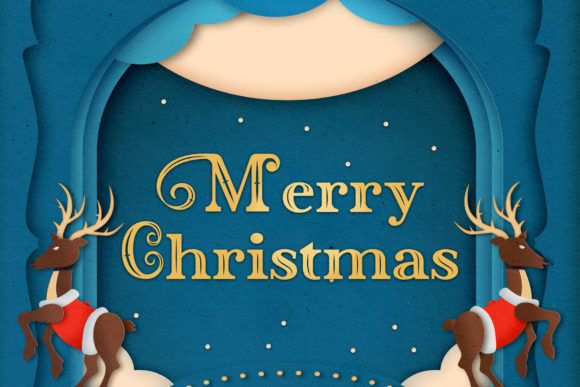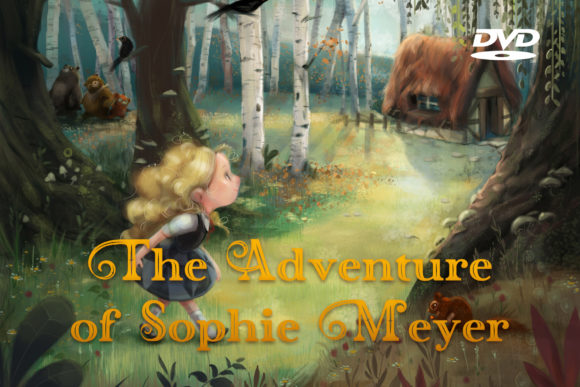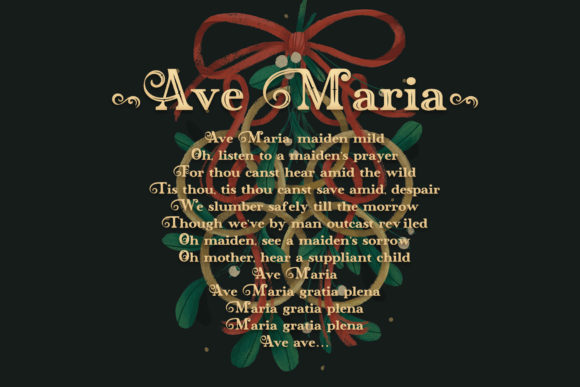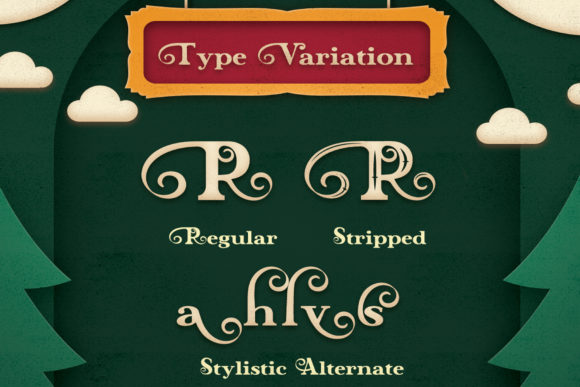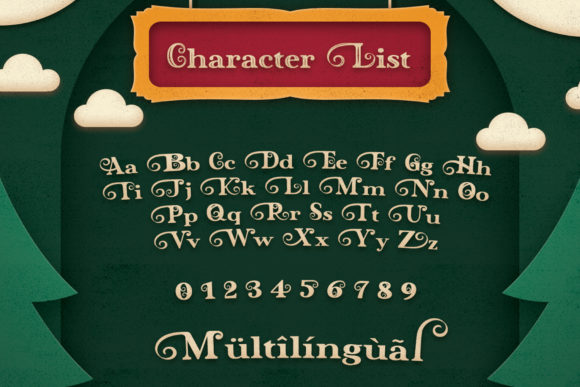
Blessed Night Font: A Fun and Playful Display Font for Your Creative Projects
Are you a designer or crafter looking for a unique and eye-catching font to add a touch of magic to your creative projects? Look no further than the Blessed Night Font! This amazing display font is perfect for a variety of applications, from children’s books and invitations to labels and Christmas designs.
A Fun and Playful Style
The Blessed Night Font is characterized by its fun and playful style, which is sure to capture the attention of your audience. The font features a whimsical design with a mix of bold and delicate lines, creating a sense of movement and energy. Its playful nature makes it an excellent choice for projects aimed at children, such as picture books, nursery rhymes, and kids’ party invitations.
One of the best things about the Blessed Night Font is its versatility. It can be used for a wide range of creative projects, including:
- Children’s books: Add a touch of whimsy to your storybook with this delightful font.
- Invitations: Create eye-catching invitations for parties, weddings, and other special events.
- Labels: Use the Blessed Night Font to create custom labels for your products or gifts.
- Christmas designs: Get into the holiday spirit with festive Christmas designs featuring this beautiful font.
- And much more: The Blessed Night Font can be used for any project that requires a playful and eye-catching font.
Why Choose the Blessed Night Font?
So, why should you choose the Blessed Night Font for your next project? Here are just a few reasons:
- Unique and eye-catching: The Blessed Night Font is a one-of-a-kind font that will set your project apart from the rest.
- Easy to read: Despite its playful nature, the font is easy to read, making it perfect for body text and headlines.
- High-quality design: The font is designed with high-quality graphics, ensuring that it will look great in any application.
- Fun and creative: The Blessed Night Font is the perfect choice for designers and crafters who want to add a touch of fun and creativity to their projects.
Tips for Using the Blessed Night Font
Here are a few tips for using the Blessed Night Font in your creative projects:
- Pair it with a simple font: To create visual interest, pair the Blessed Night Font with a simple font for body text.
- Experiment with colors: The Blessed Night Font looks great in a variety of colors, so don’t be afraid to experiment and find the perfect hue for your project.
- Use it for headlines: The Blessed Night Font is perfect for headlines and titles, where its playful nature can really shine.
In conclusion, the Blessed Night Font is an amazing display font that is perfect for designers and crafters looking to add a touch of magic to their creative projects. Its fun and playful style, versatility, and high-quality design make it an excellent choice for a wide range of applications. Whether you’re working on a children’s book, invitation, label, or Christmas design, the Blessed Night Font is sure to bring a smile to your audience’s face.